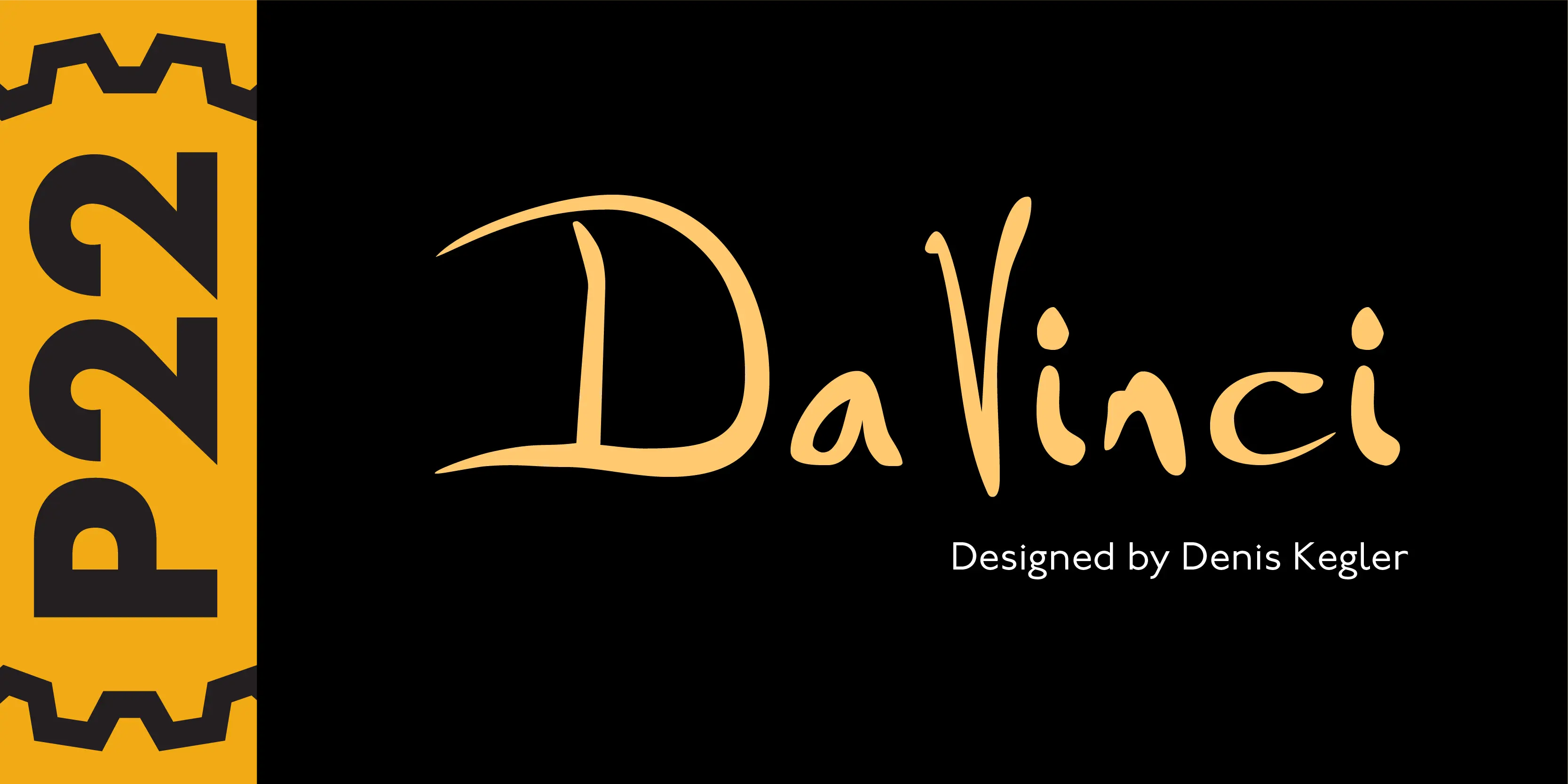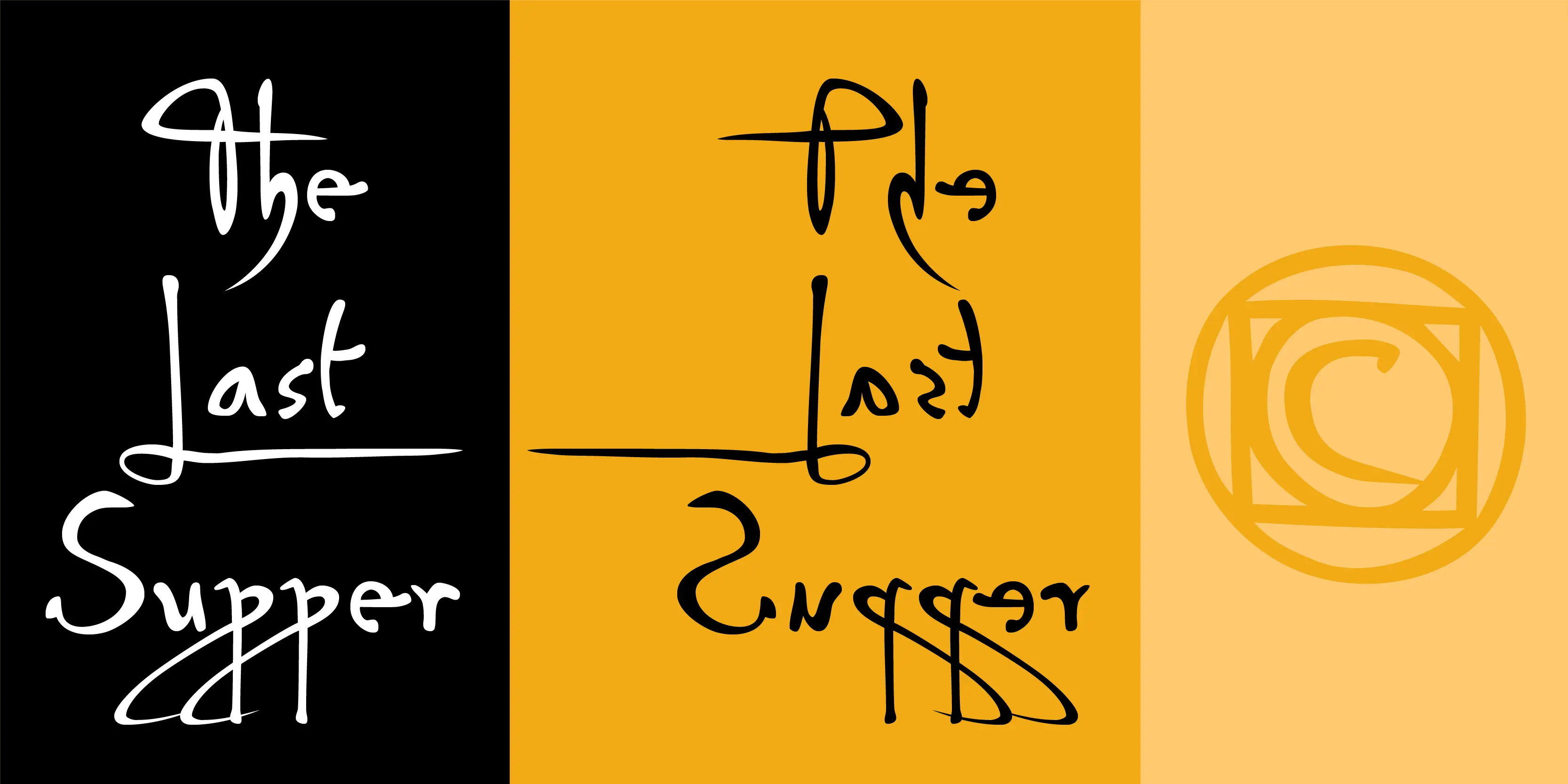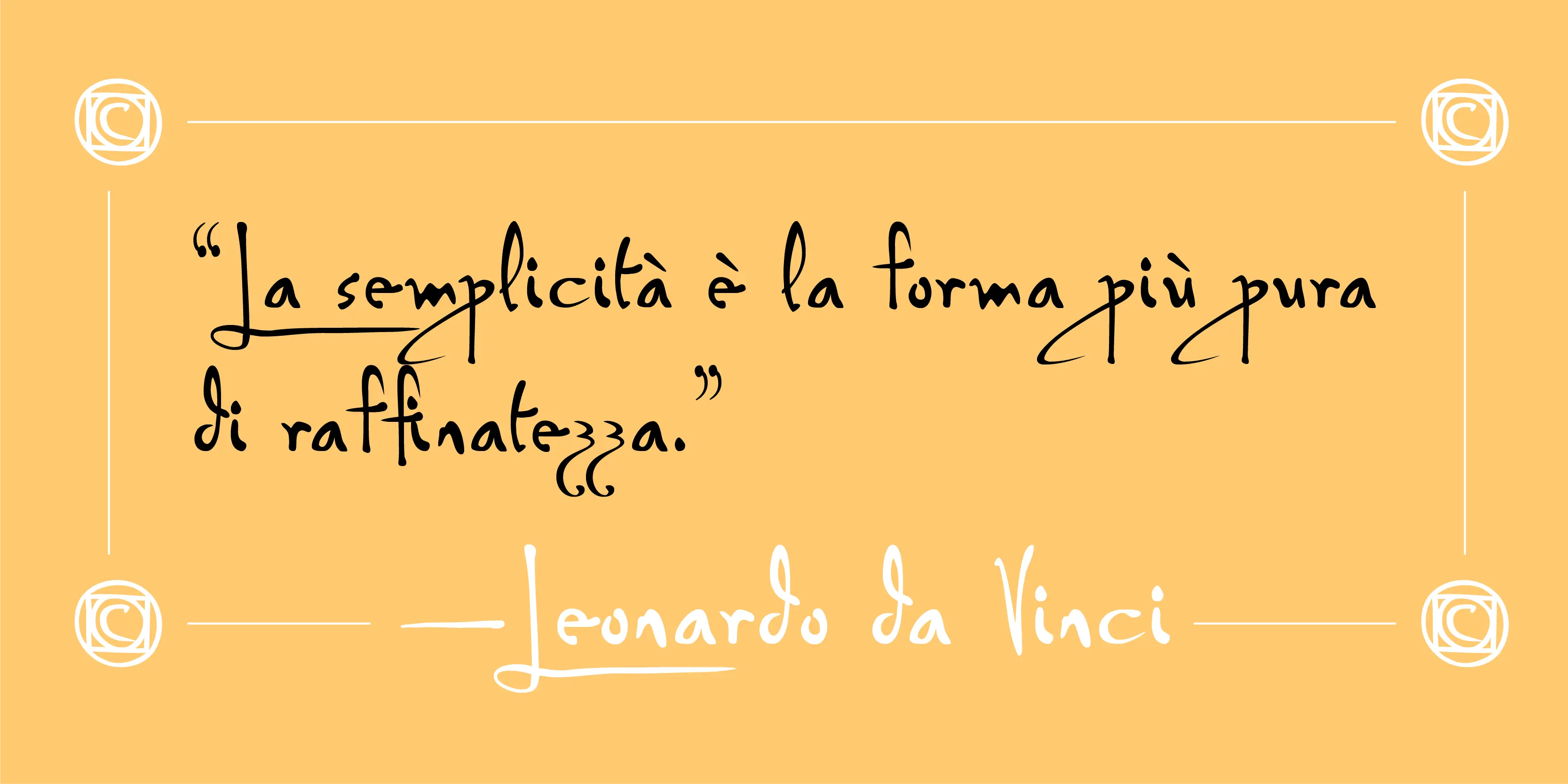
Da Vinci Font Family
• Da Vinci Backwards
• Da Vinci Forward
• Da Vinci Extras
Da Vinci
The great Italian artist, inventor, and visionary Leonardo da Vinci created an extraordinary variety of work which continues to amaze those who study it. This set faithfully captures Leonardo’s remarkable imagination and includes an exclusive da Vinci Backwards font (reflecting the artist’s own unique style of handwriting). The 72 extras included are drawn from Leonardo’s sketchbooks and journals.